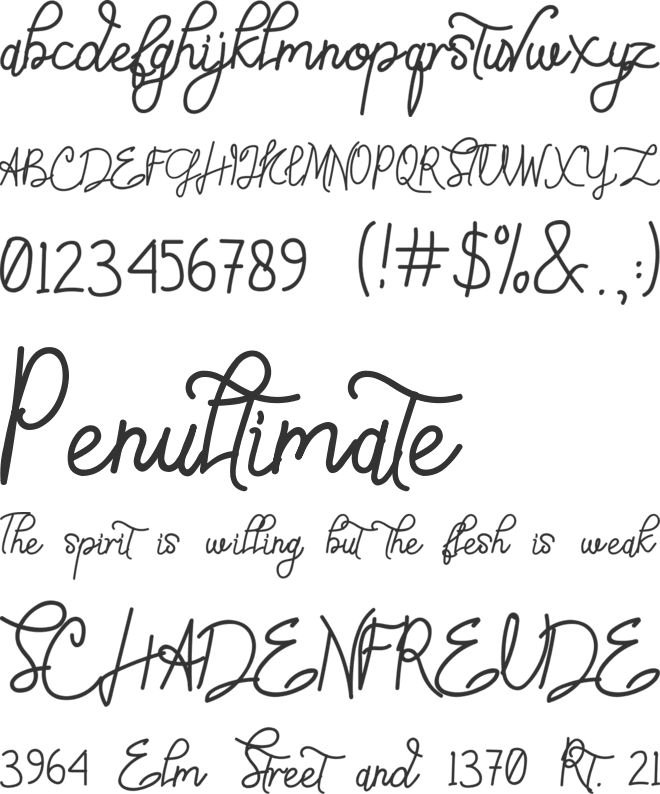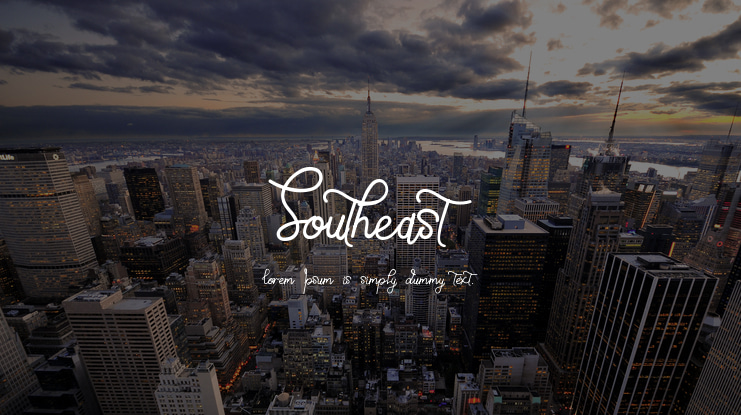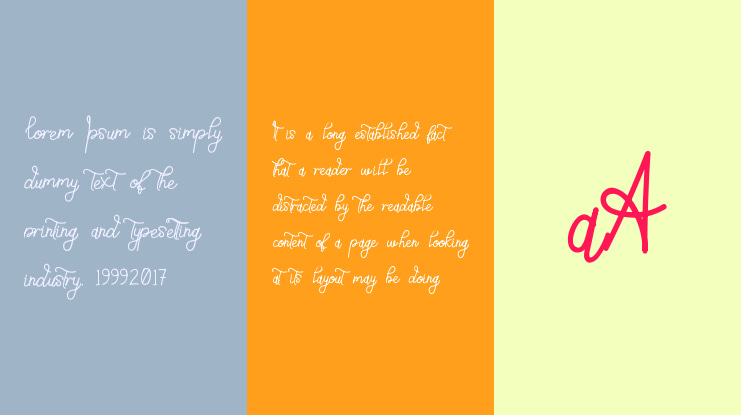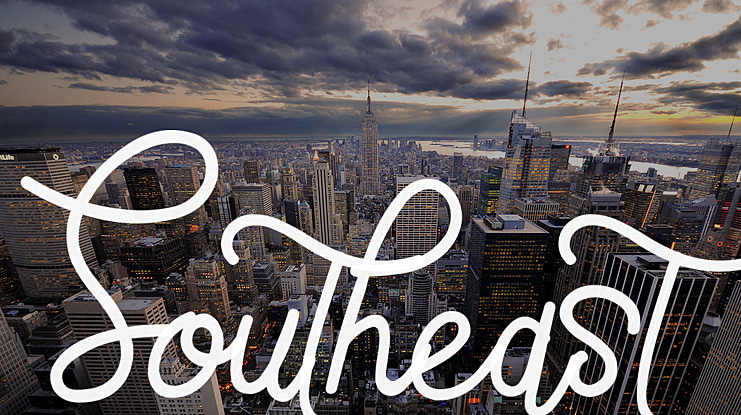
Southeast Font
Artspace 2018
The Southeast is a wonderful font duo, it has natural handwritten touch which make it perfect forsignatures, business card, social media, product brands and any other needs.